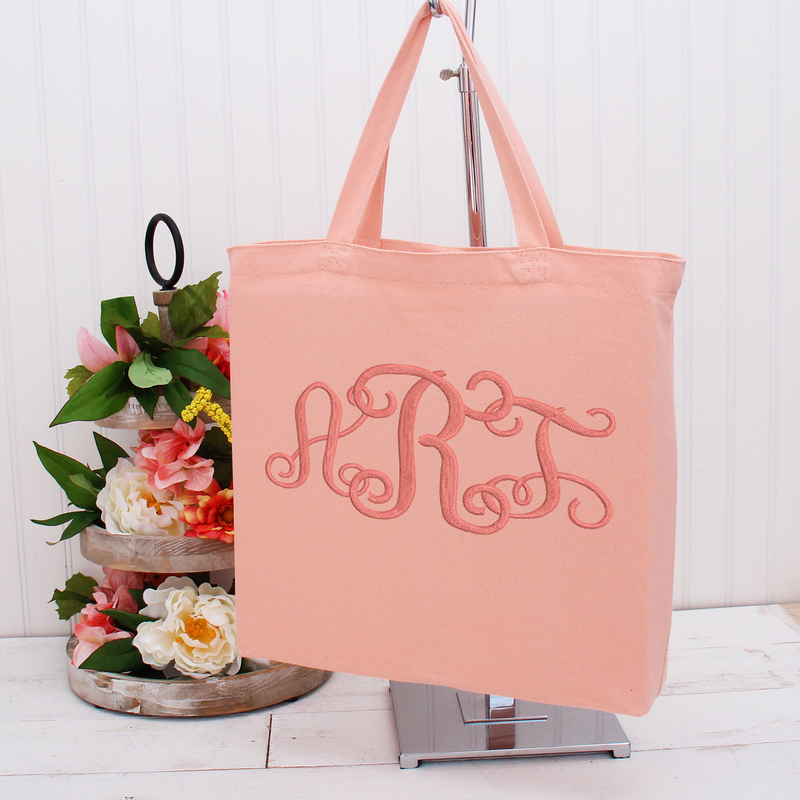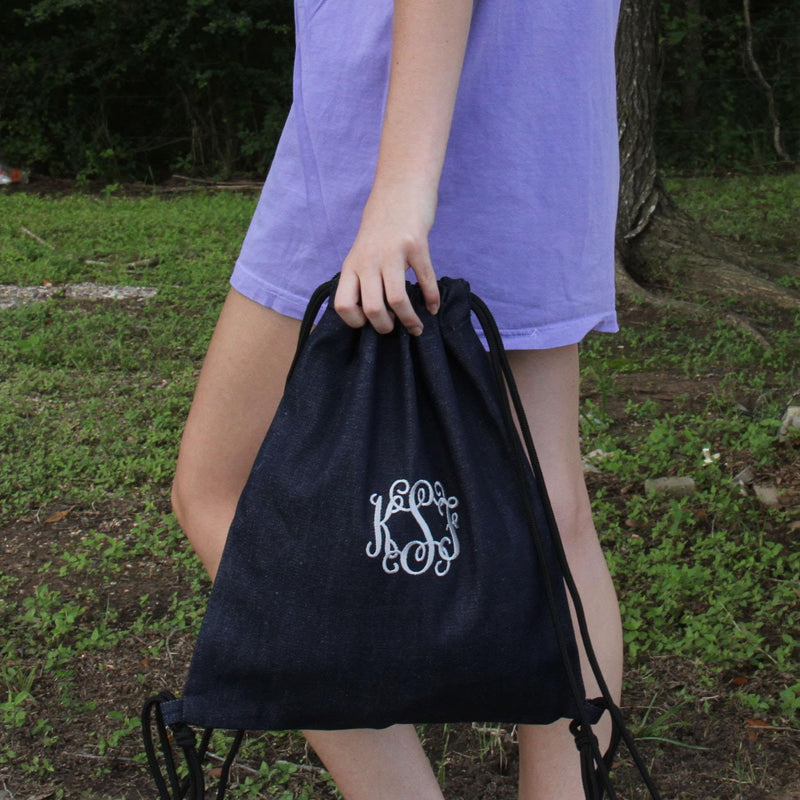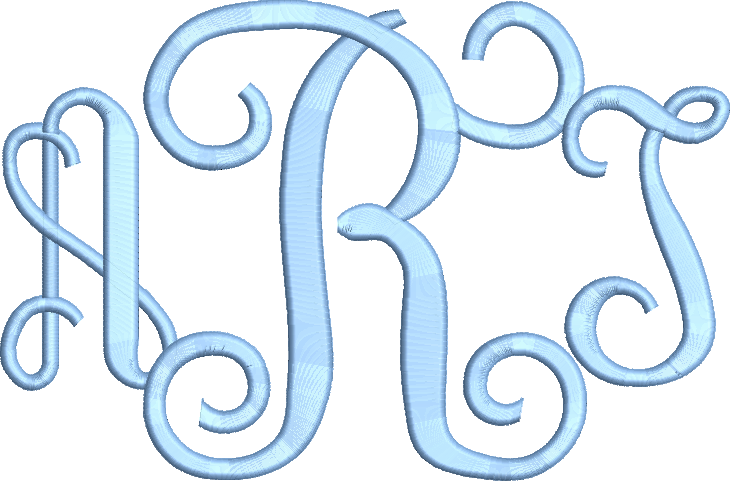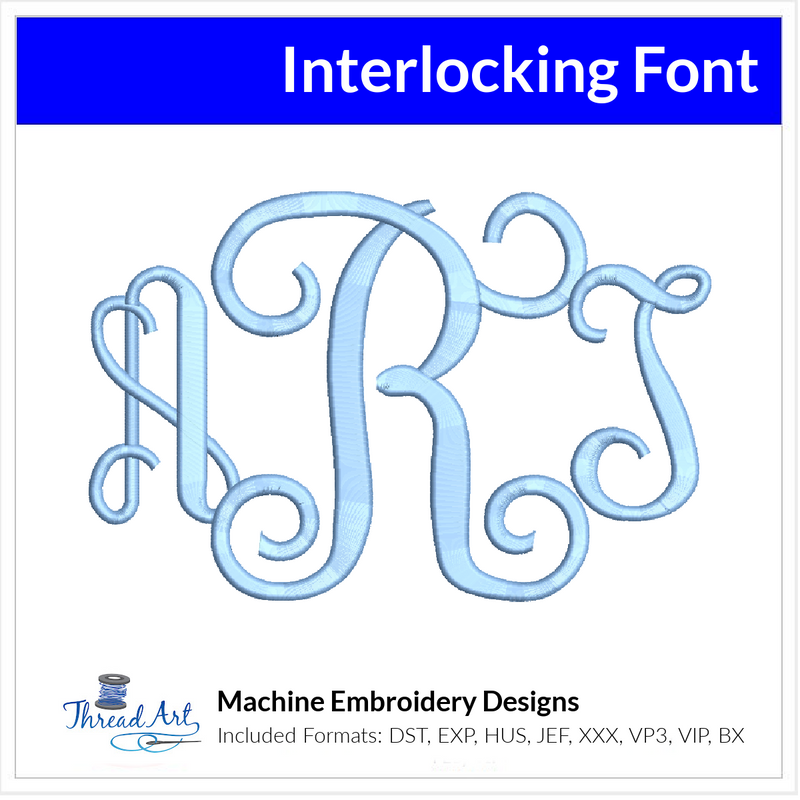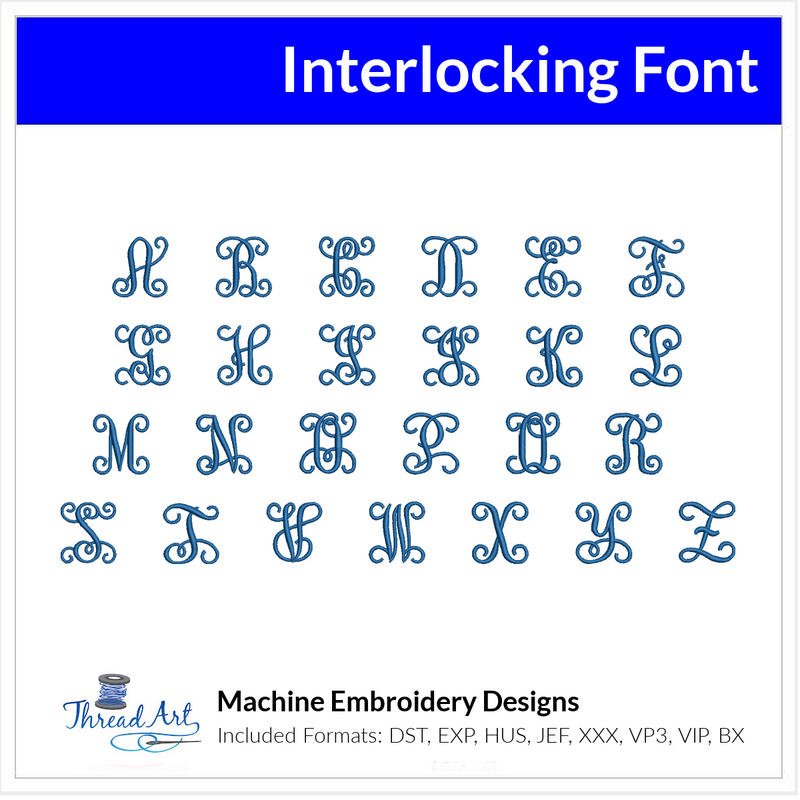
Interlocking Font Machine Embroidery Design Set - Monogramming Alphabet Letters BX Font - Download 9 Formats and 3 Sizes
Interlocking Font Design -- Machine embroidery font design set with different design sizes included. Letters are 1", 1.5", 2" and 2.5" tall satin stitch and includes uppercase monogramming style in popular formats: DST, EXP, HUS, JEF, PES, XXX, VIP, VP3. Convenient for those with multiple machines. You will have instant access to downloads after purchase. Choose physical USB stick to have designs sent via mail on a usb stick.